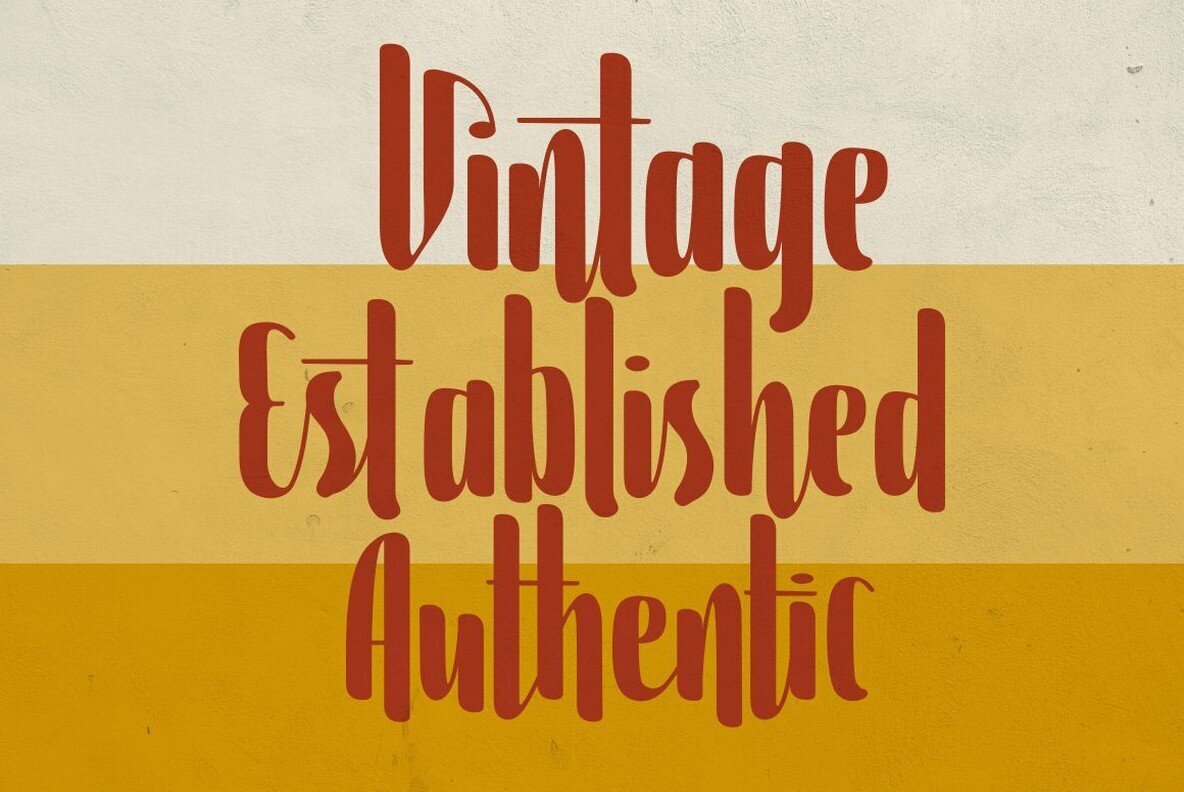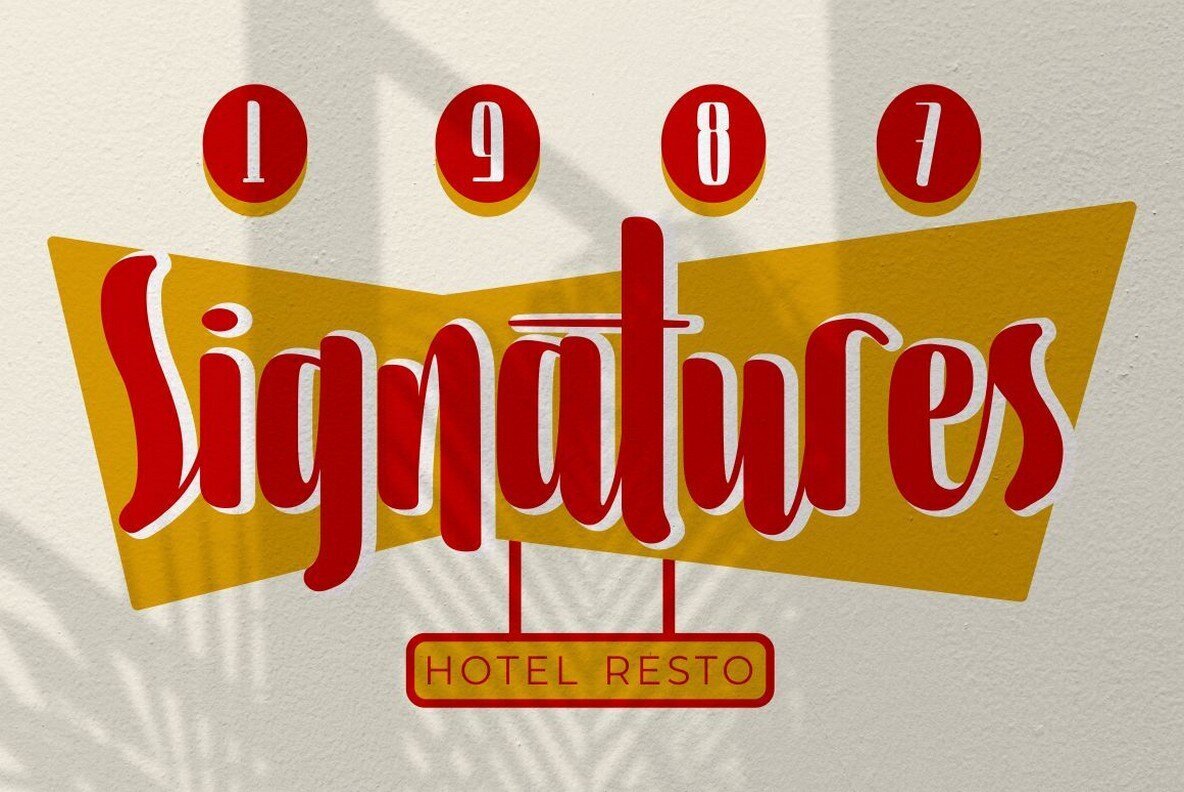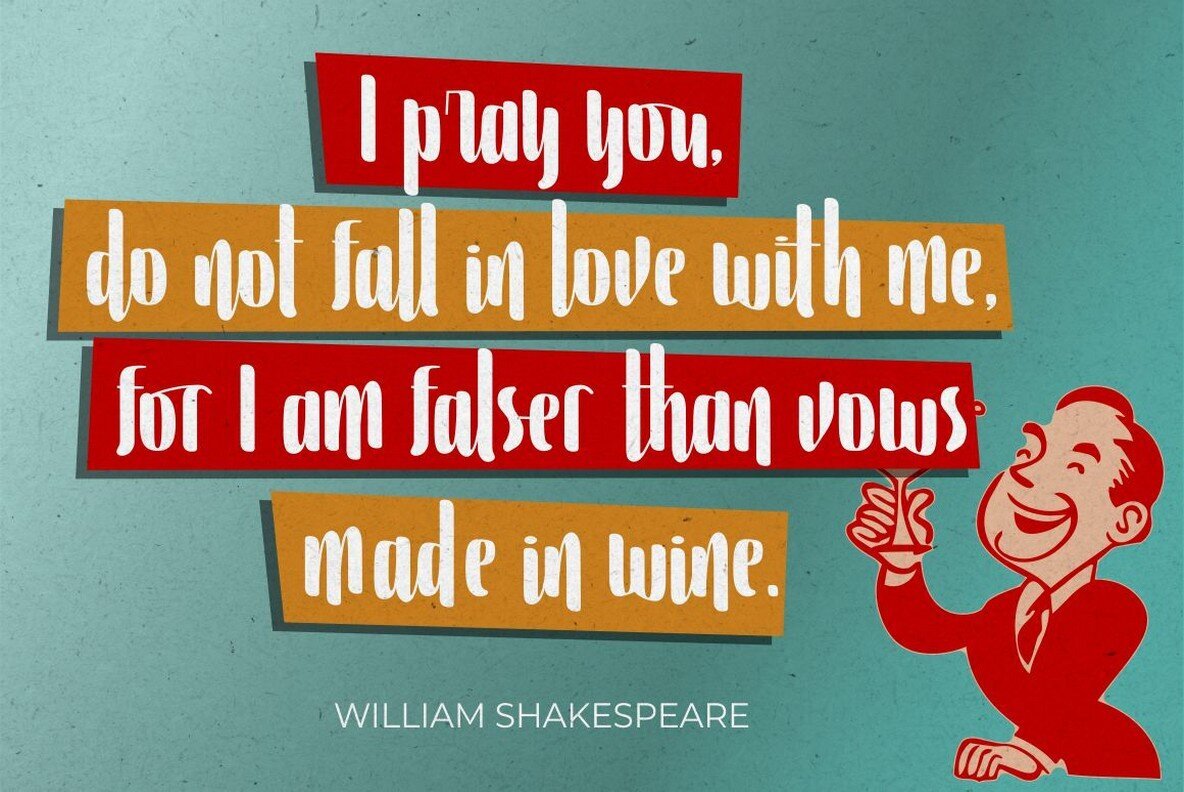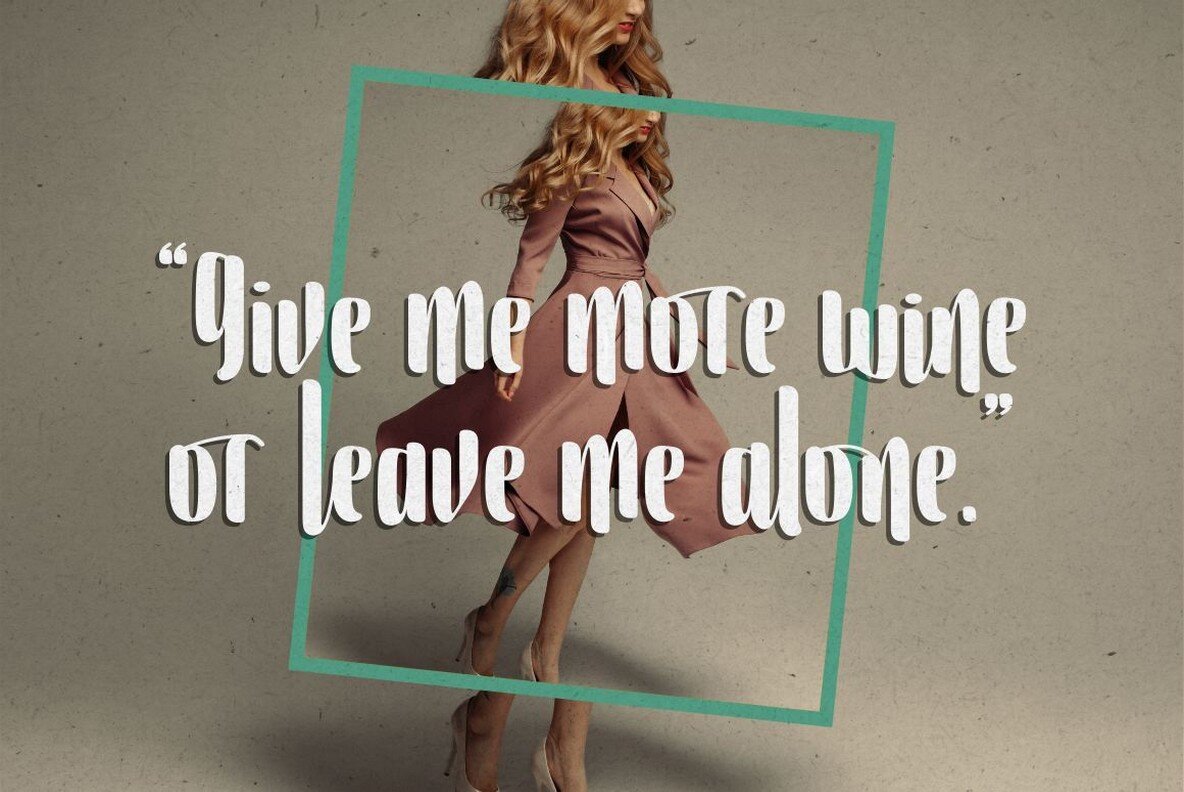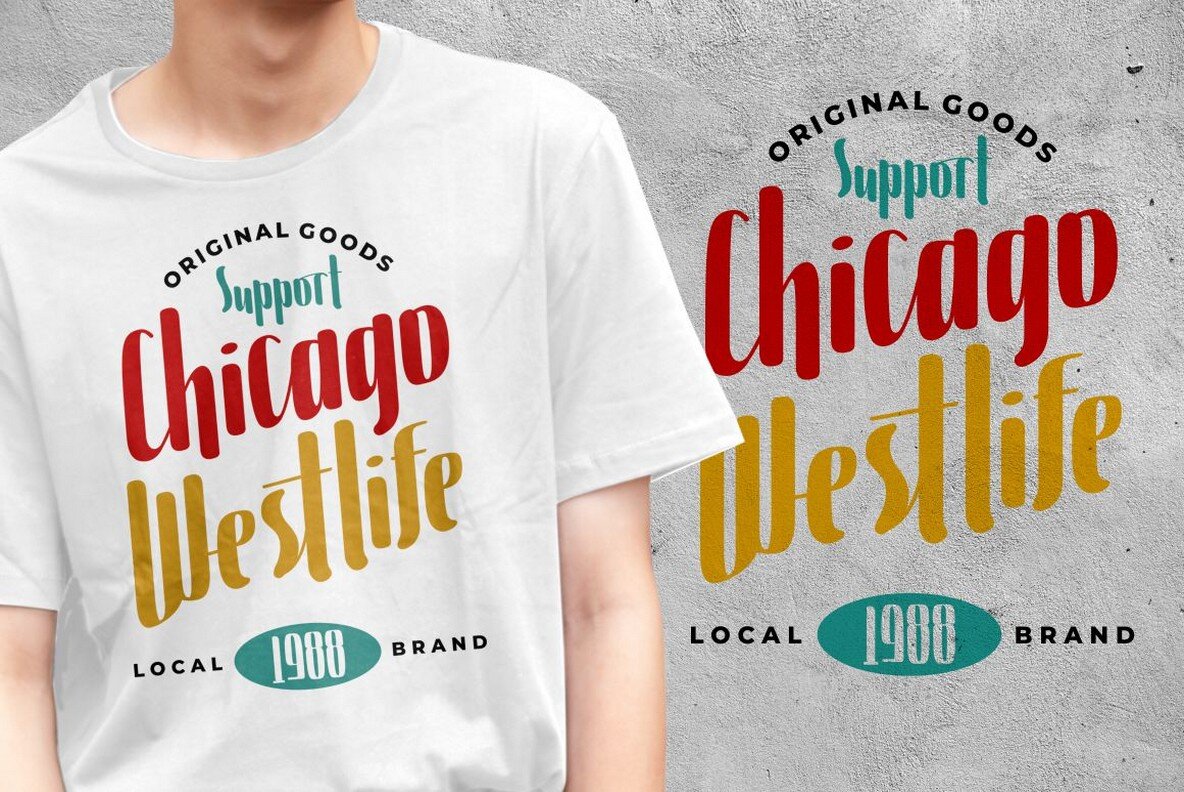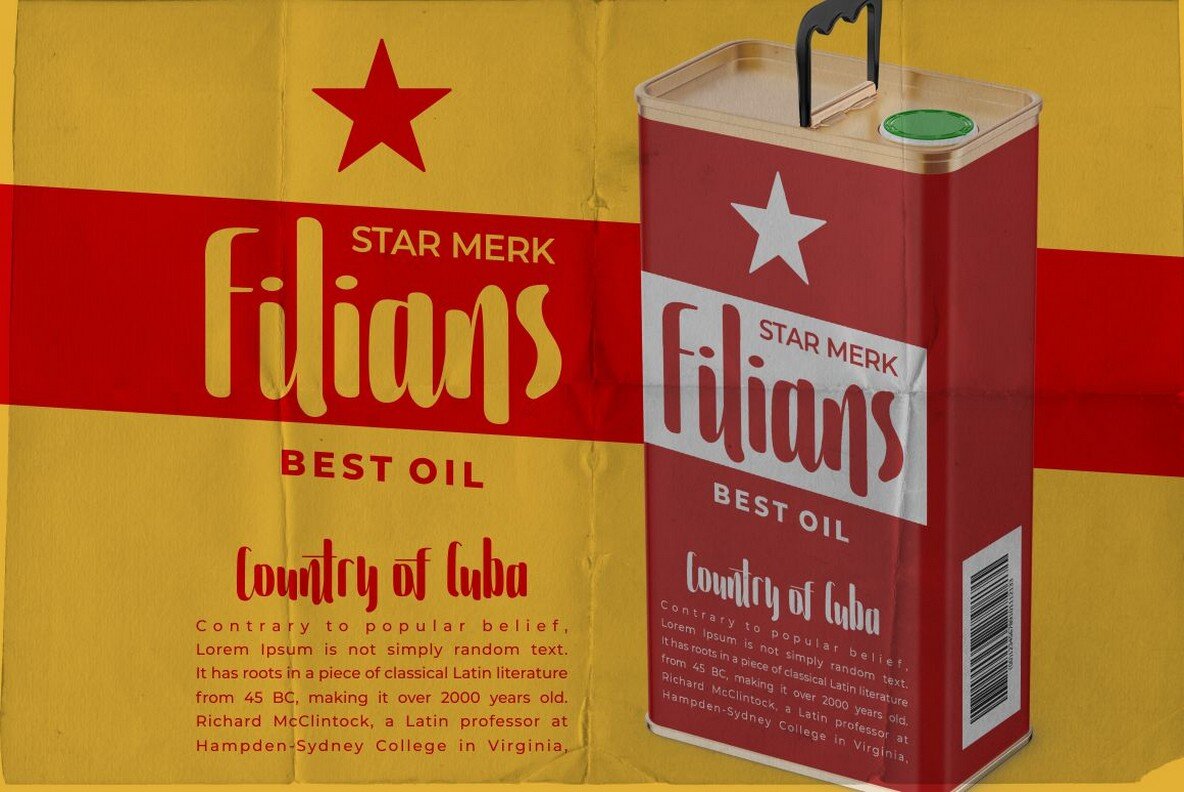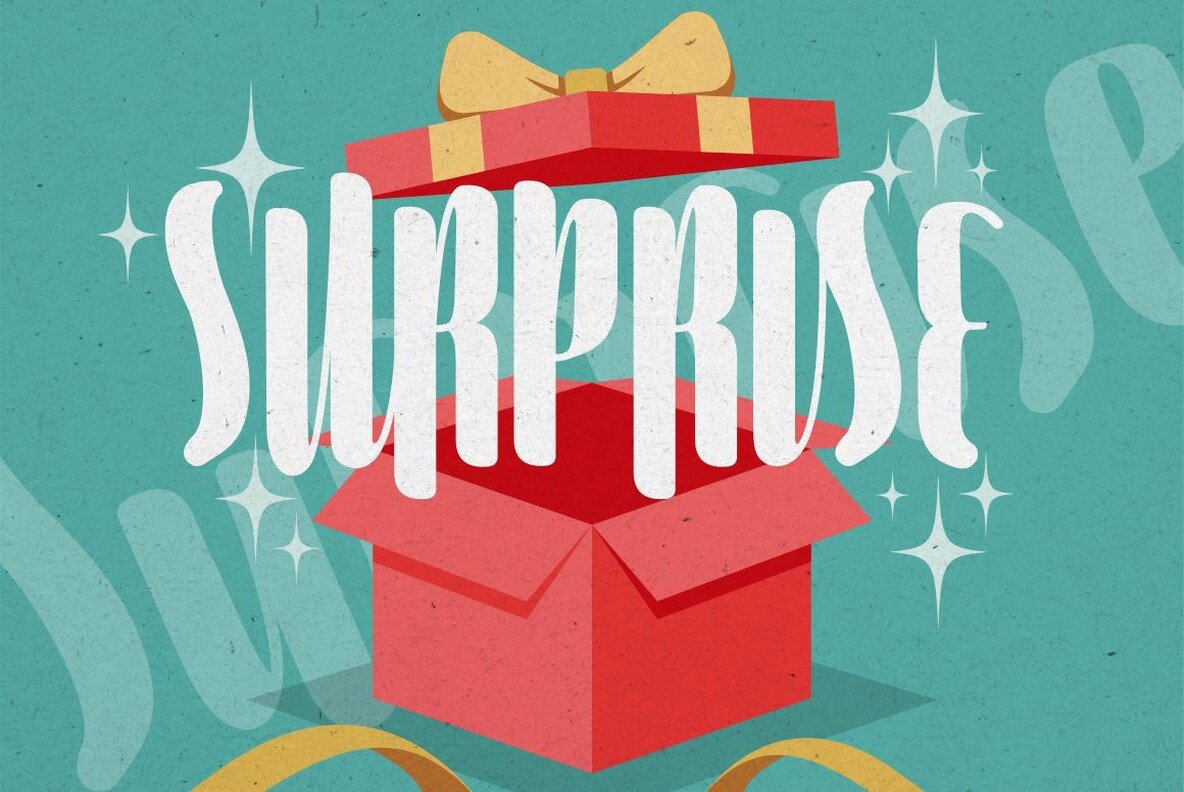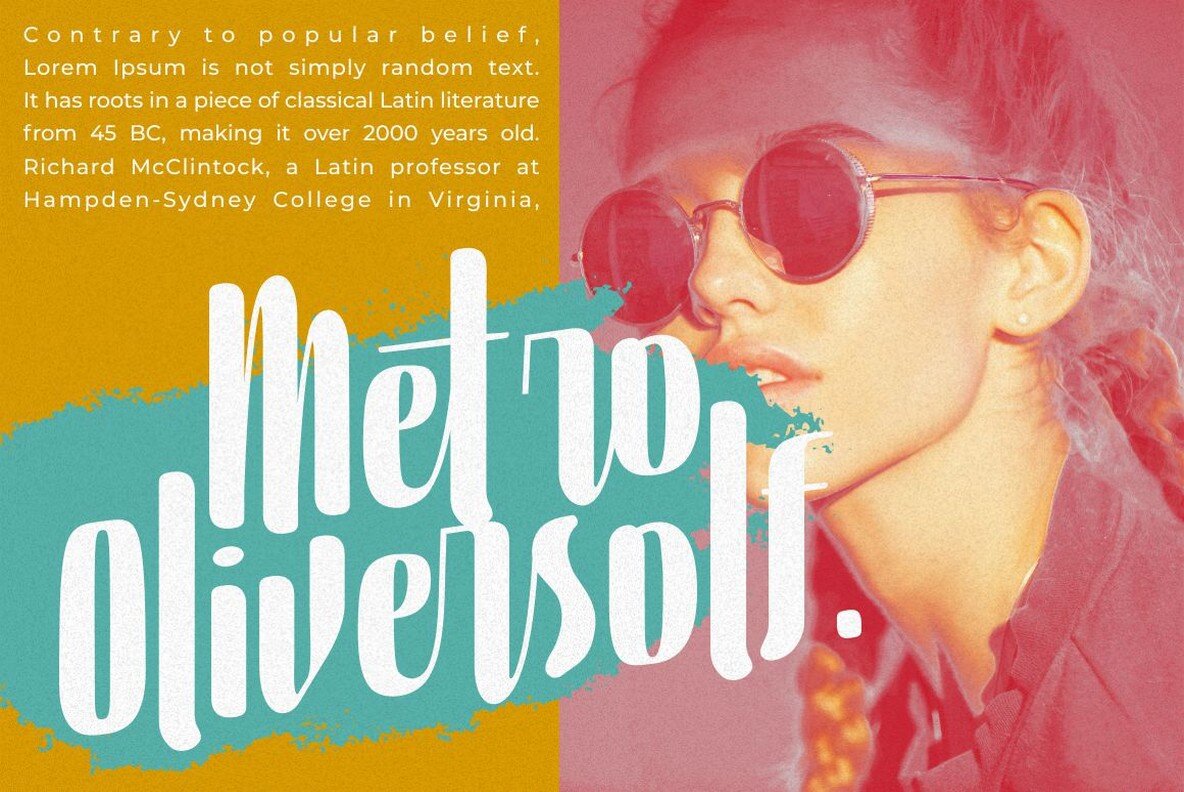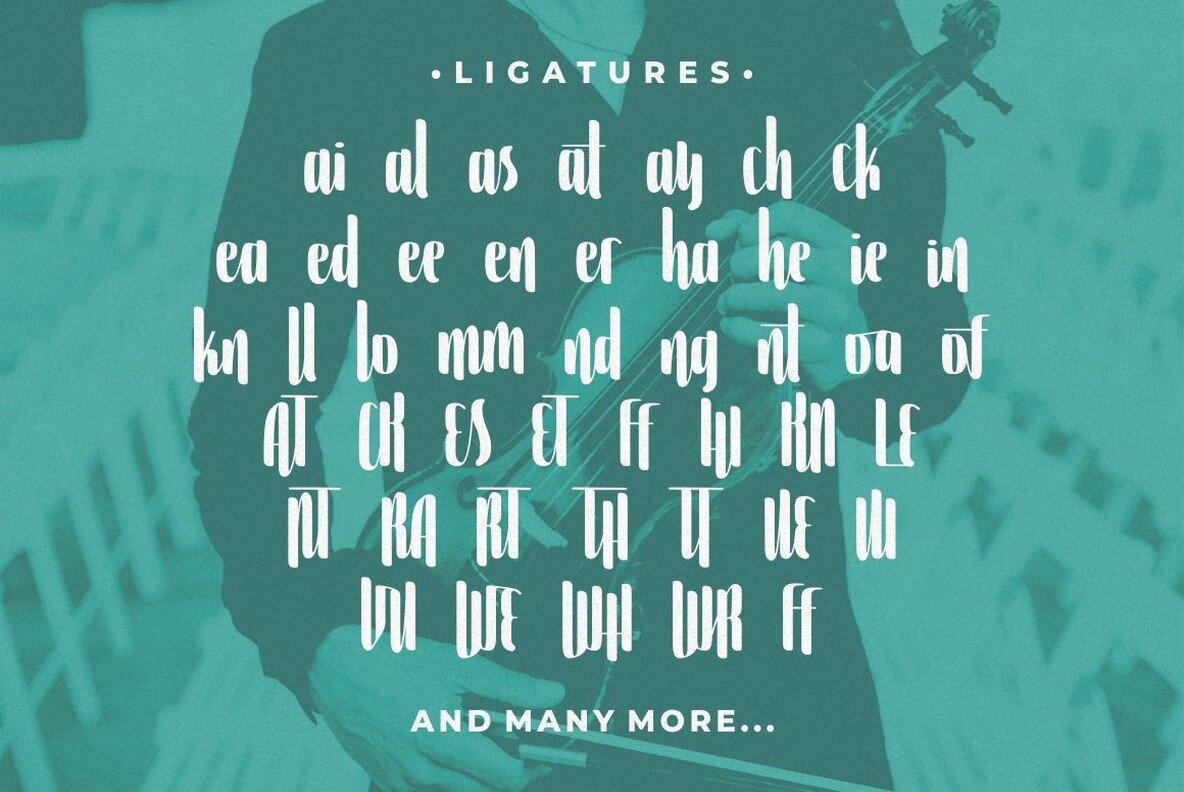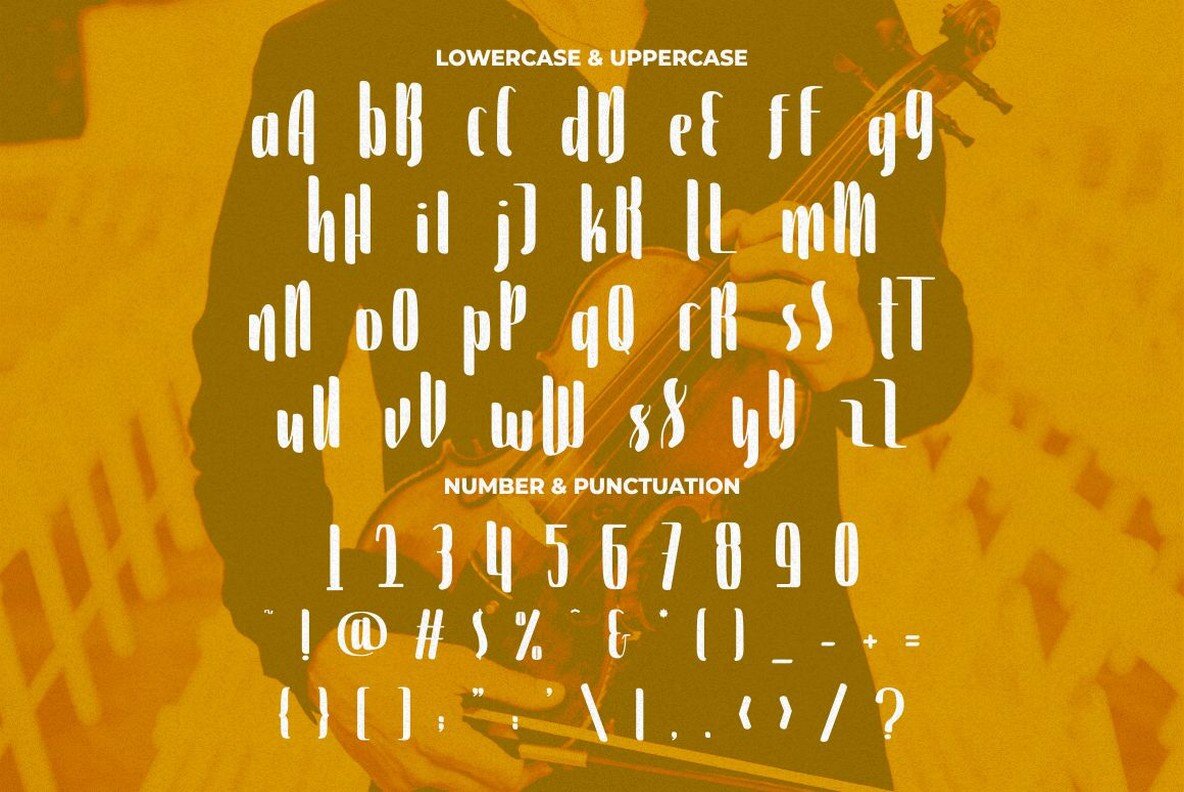
Violinist is a script font that has been inspired by classic billboards and logos of the past. It includes 140 alternate letters to give your project an authentic vintage feel, but if you want something more modern without all those extra features then just use it without any ligatures!